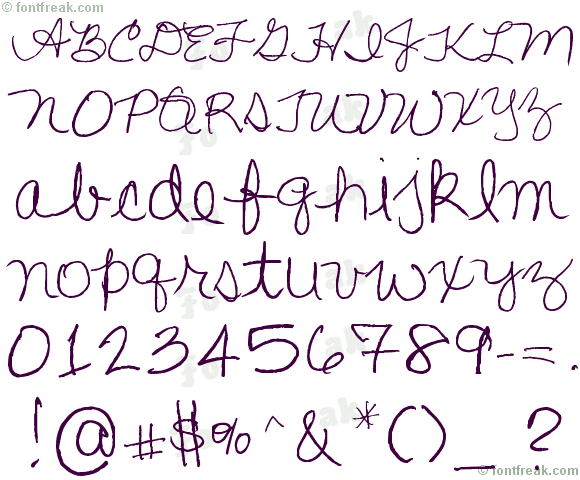
Lisa's First Class
About Lisa's First Class
Lisa's First Class by Xerographer Fonts is a delightful handwritten font that embodies a charming, casual elegance. This font captures the essence of personal touch, featuring a medium stroke weight that balances playfulness with readability. The gentle curves and loops create a fluid look, while the moderate spacing between characters adds to its legibility, making it suitable for various design applications. This font is characterized by its whimsical, yet sophisticated decorative elements, which include unique swashes and playful ligatures that enhance its handwritten feel.
The best use cases for Lisa's First Class include wedding invitations, where its romantic flair can set a warm tone, and greeting cards, allowing for heartfelt messages to be conveyed with personality. Additionally, it works wonderfully for restaurant menus, lending a cozy and inviting atmosphere to any dining experience. This font is also perfect for personal branding projects and social media graphics, helping content creators stand out with an authentic, approachable style.
What truly sets Lisa's First Class apart is its ability to evoke emotion through its distinct handwritten quality. This font not only conveys information but also tells a story, inviting viewers to engage with the content on a deeper level. For those in search of a unique typeface that combines charm and versatility, the Lisa's First Class font free download is a must-have addition to any designer's collection.